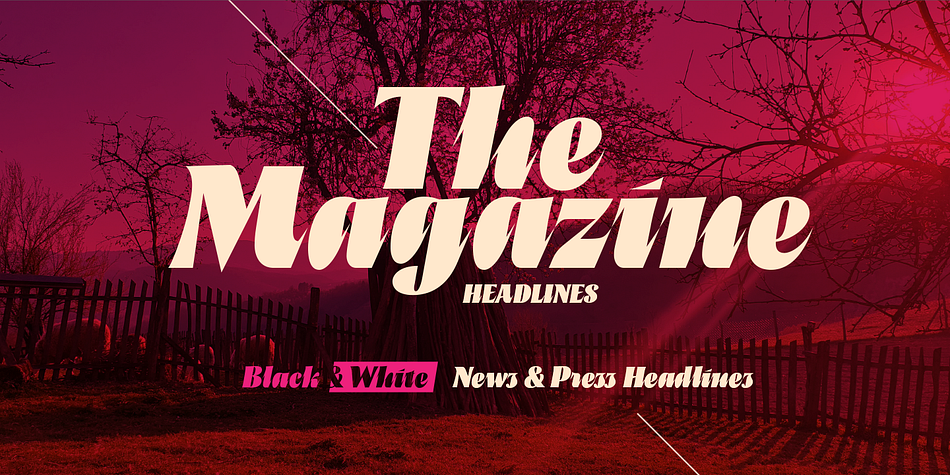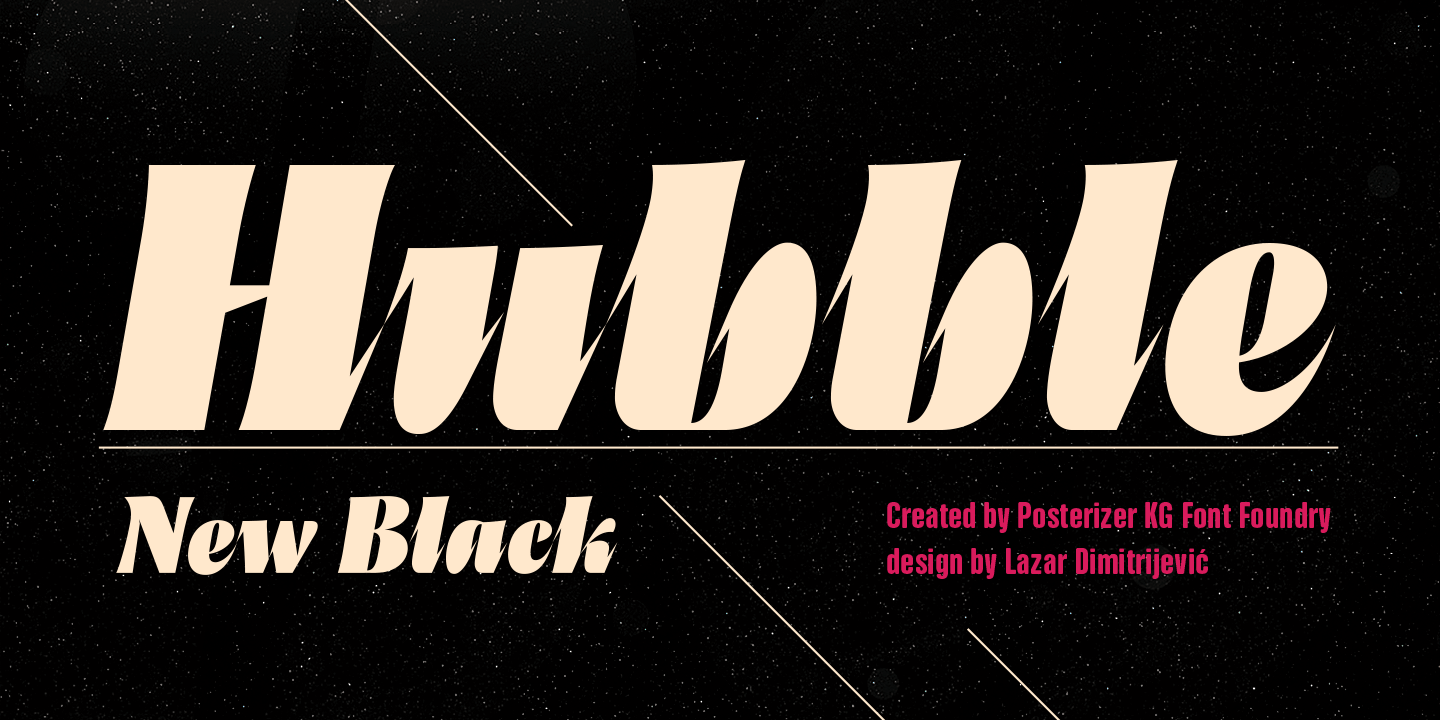
Hubble
Designed by Lazar Dimitrijević, Hubble is a display and display sans font published by Posterizer KG.
Hubble font is being released to commemorate the Hubble Space Telescope’s 30 years of viewing the wonders of space. Hubble is strong, dynamic, and simple, because of that, very suitable for the design of logos, product branding, poster design, t-shirts, short signage, book covers, magazines, WEB banners, packaging, and other beautiful and creative things such as music, fashion, film ...
Foundry Posterizer KG
Styles Display, Display Sans
Designer Lazar Dimitrijević